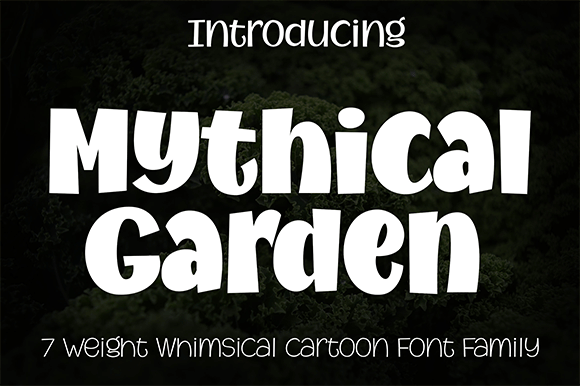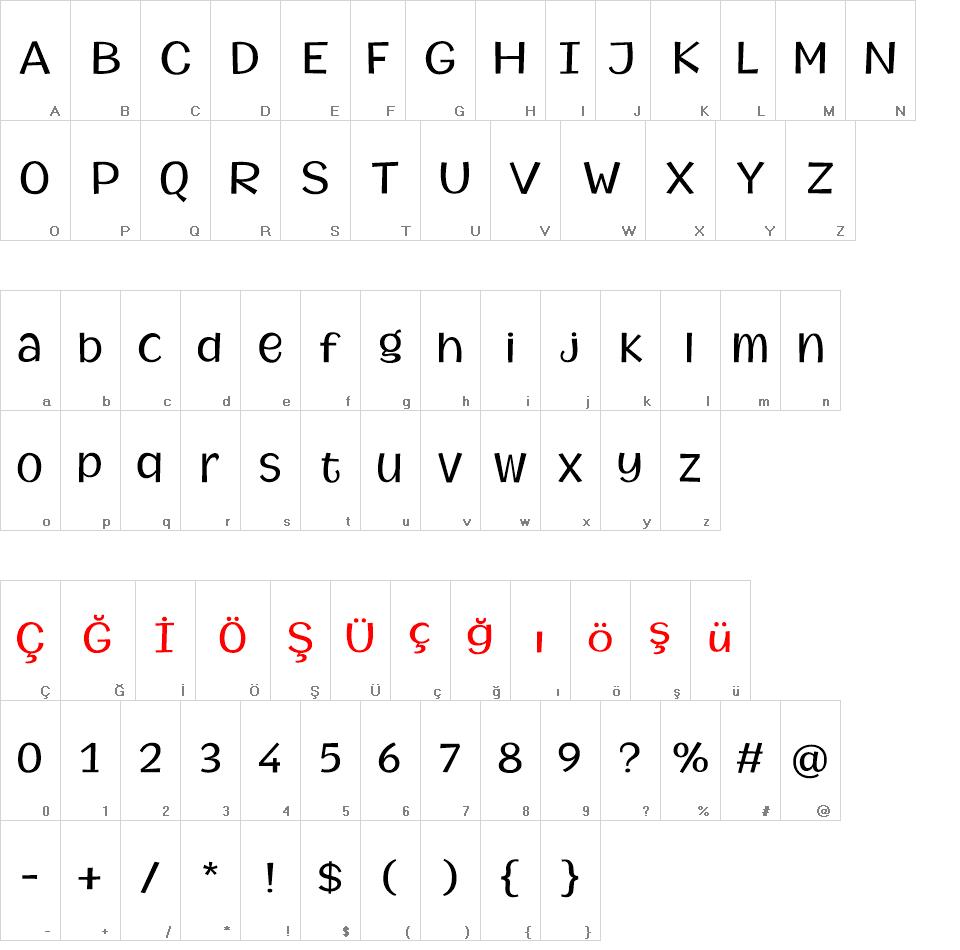
Introducing a new cool comic font family!, named as Mythical Garden. This font was carefully crafted with clean node. Available in seven weight variation, so you can enjoy design a page just with a font family.
Font Features:
- 7 weight font family
- Good kerning even you mix uppercase-lowercase-uppercase
- Complete Latin and Eastern Europe characters.
- Alternate for a and g (activate Contextual Alternates in opentype feature)